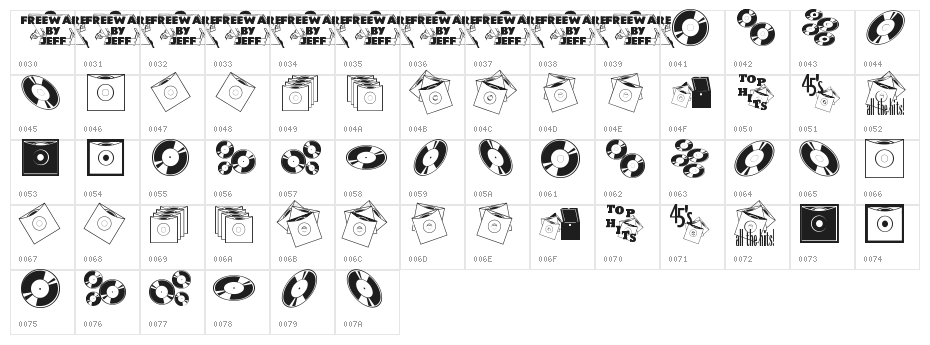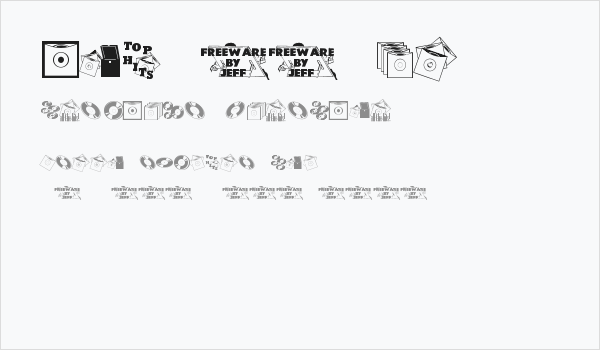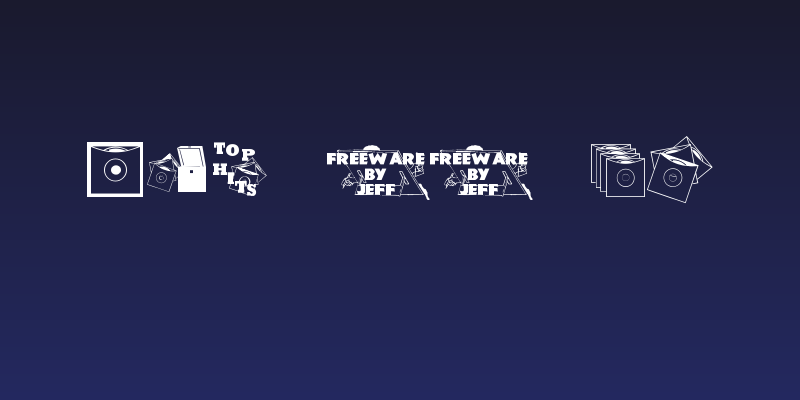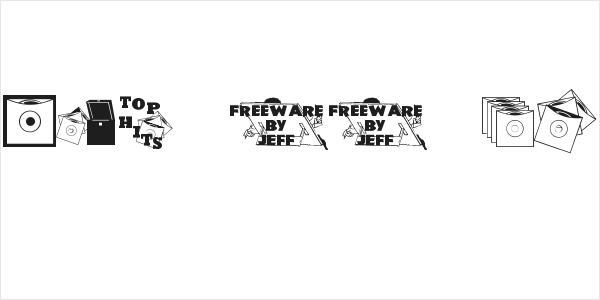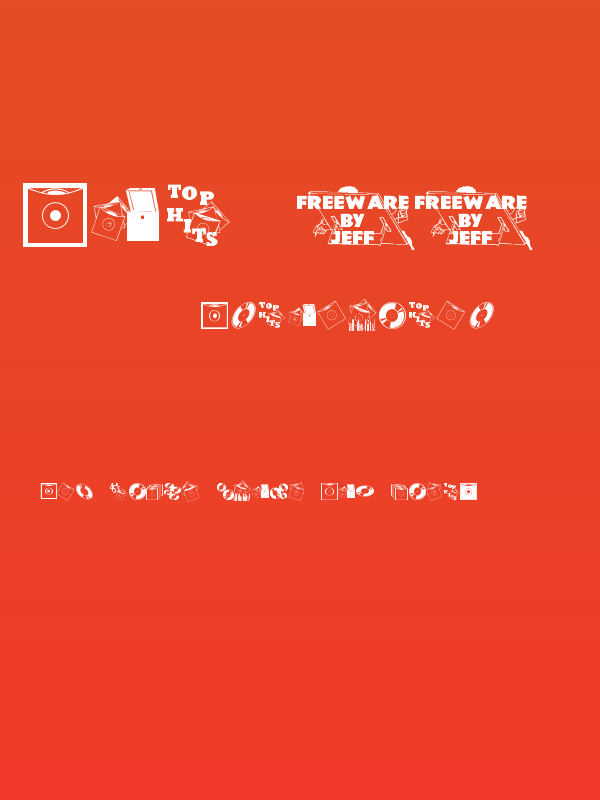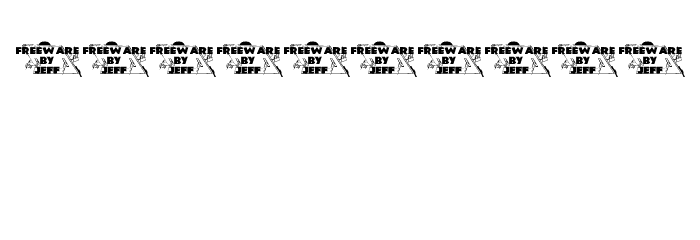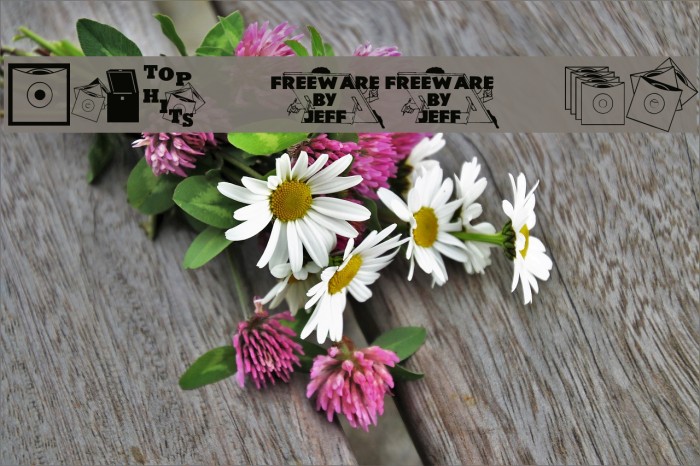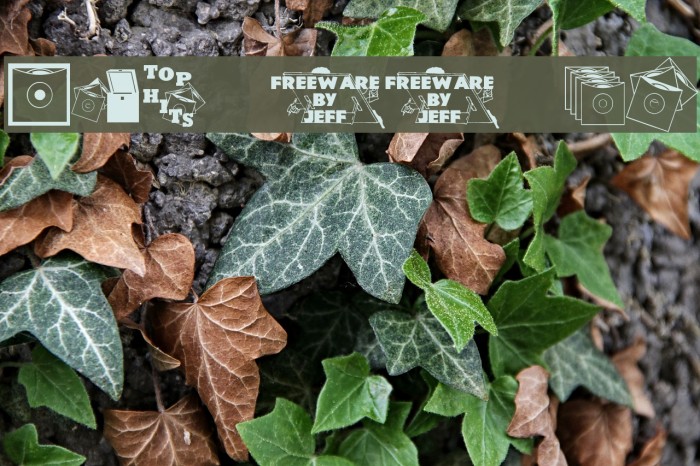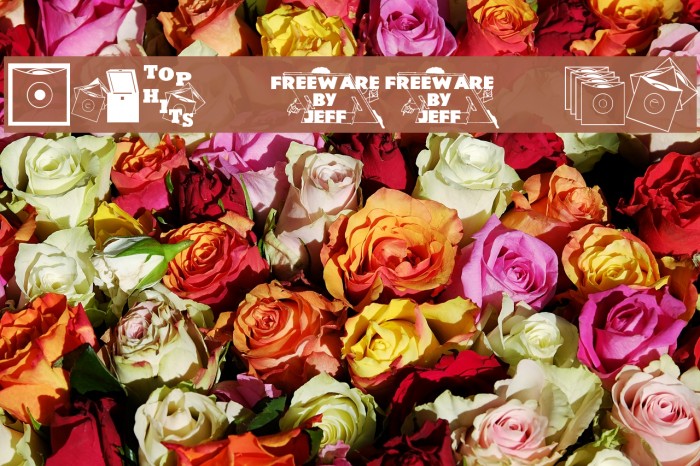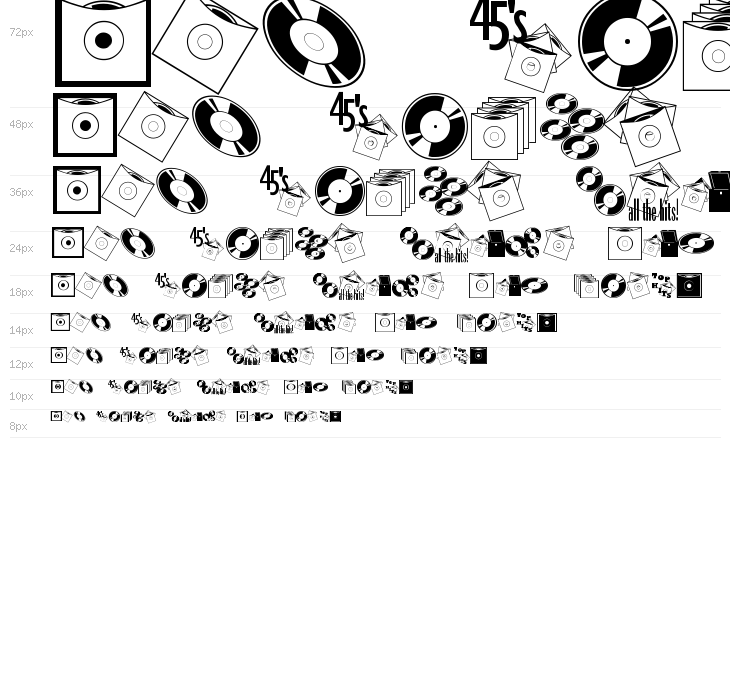
Top 40 JL Font
Top 40 JL Description
This is not a traditional font but rather a collection of decorative symbols and graphics related to music and records. The design includes images of vinyl records, record sleeves, and text elements like 'Top Hits' and '45s'. These elements are arranged in a playful and nostalgic style, reminiscent of classic music memorabilia. The graphics are bold and eye-catching, suitable for projects that aim to evoke a sense of retro music culture.
| Overall Style | Vintage |
| Use Case | Logos, Posters, Decorative elements |
| Proposed Projects | Ideal for music-themed posters, retro event flyers, album covers, and vintage-style advertisements. |